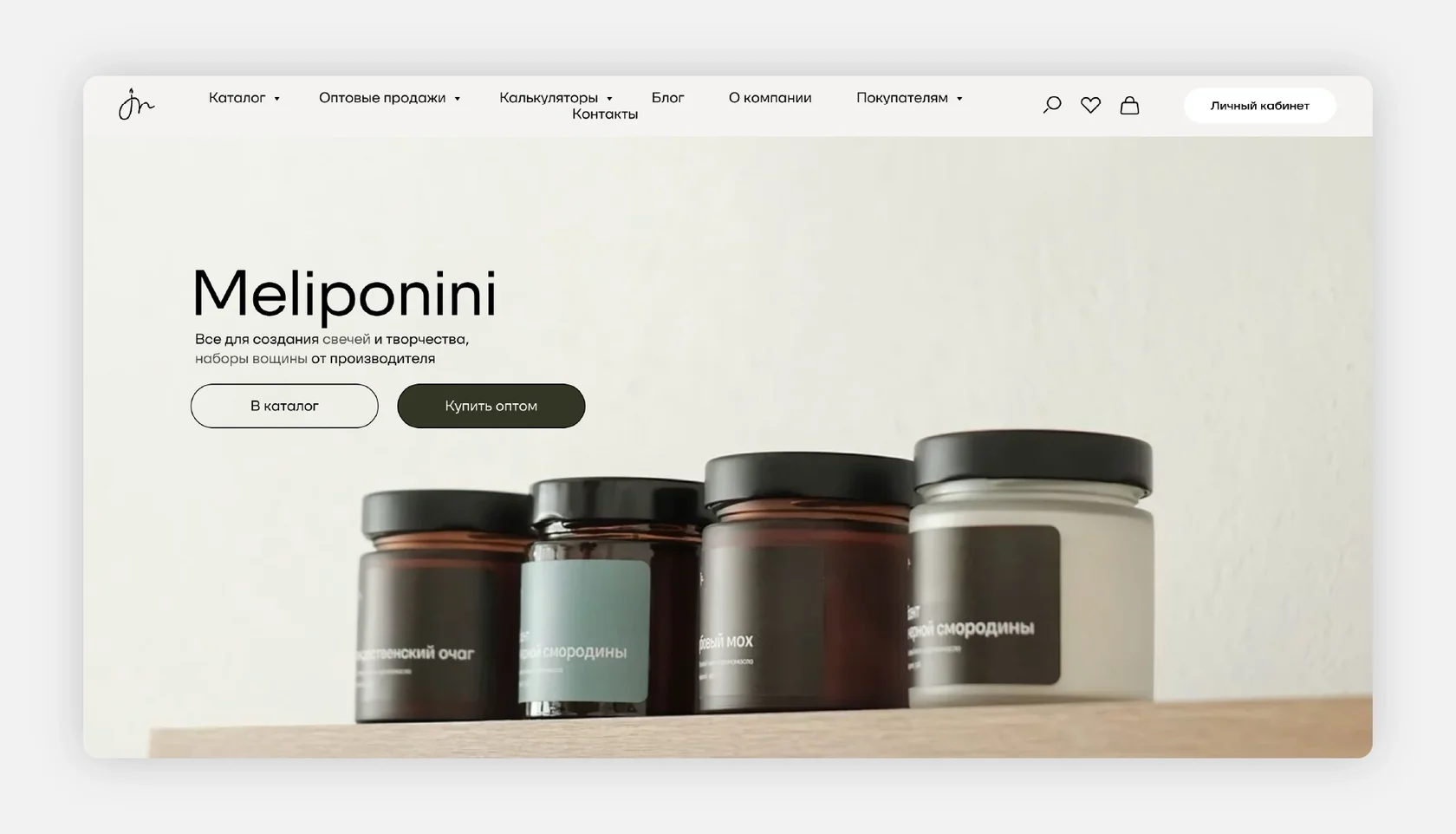
Meliponini — More Than Just a Candle Shop
Font: SFT Schrifted Sans (ExtraLight, Regular, Medium, Bold).
Use case: Website typography, branding, packaging.
About the Project:
Meliponini is a family-run company that crafts beeswax candles and wax sheets while sharing their expertise through education. Their brand identity reflects this hands-on approach, with SFT Schrifted Sans providing a balance of clarity and warmth. The curly alternates from the Display Set enhance packaging with a handcrafted, artistic touch.
Why SFT Schrifted Sans?
This typeface perfectly complements Meliponini’s people-focused, craft-driven philosophy. Its clean structure ensures readability on the website, while the expressive alternates add personality to packaging, mirroring the creativity behind their products.